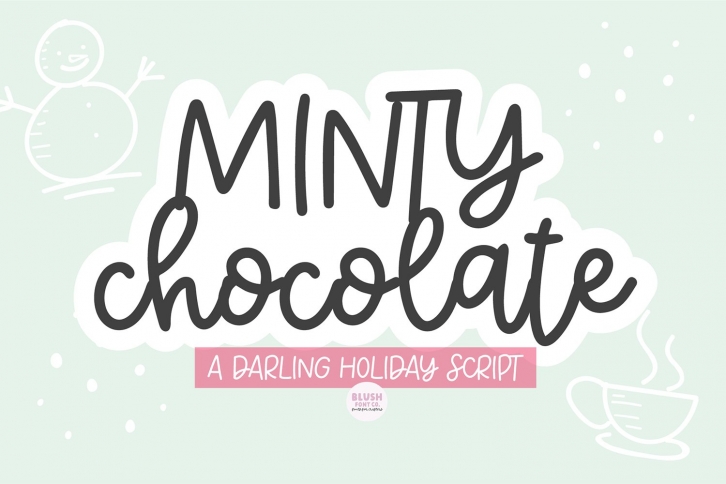
MINTY CHOCOLATE Cute Christmas Script is a trendy and unique font with an authentic style. It was designed by Blush Font Co and it's a great choice for creative people who need such a font. It was released on November 11, 2021 and the file size is 9.6 MB. MINTY CHOCOLATE Cute Christmas Script will add an organic vibe to any design idea!